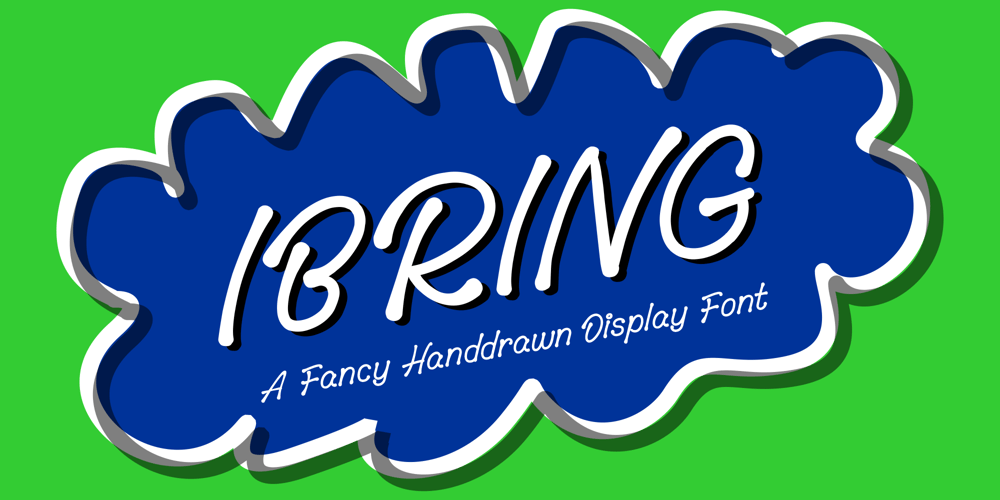
Ibring
Ibring font
Ibring Font Family was designed by Muhammad Jauhar Azmi and published by Brainware Graphic. Ibring contains 1 styles and family package options. Ibring is a fancy handwritten display font, casual script based. a rounded end of stroke made to representing naturally written script font